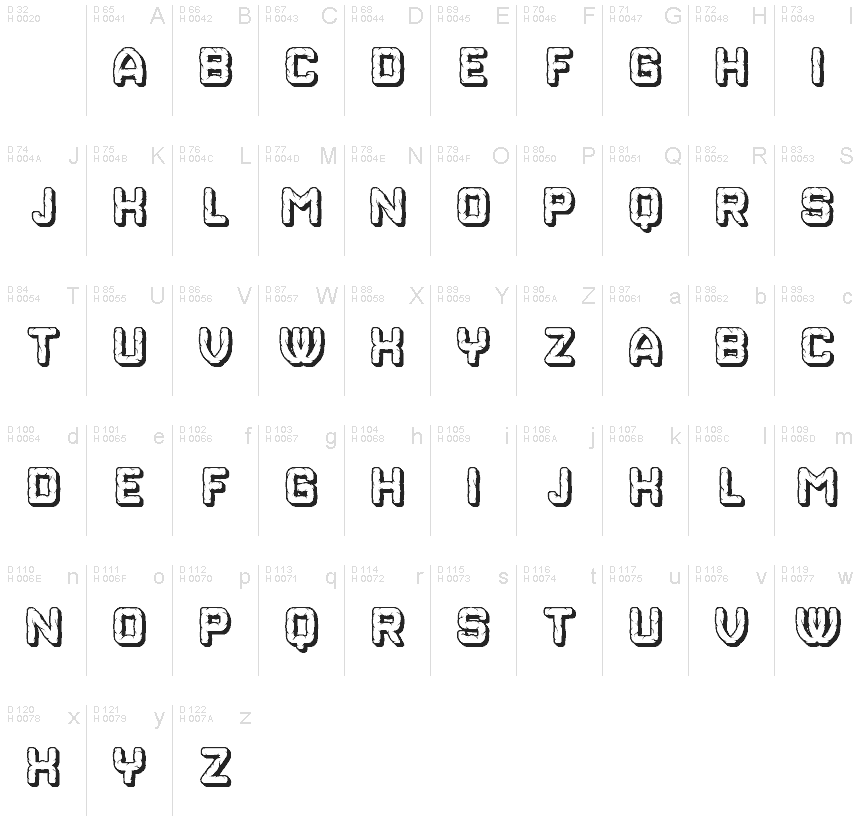
Sculpting Regular
With this Sculpting display font, you’ll learn a lot about the design processes of font creation. This is a free download shared by Vladimir Nikolic that features a set of bold and stylish letters with a modern vibe.
The Sculpting font is characterized by its unique outline, with its wavy features creating a stone texture that evokes a sense of ruggedness and strength.
A great combination of the two gives you a beautiful font that is great for logos, posters, advertisements, packaging, labels, social media branding, and book design.